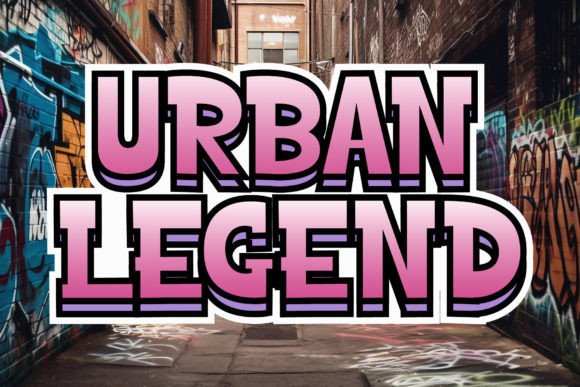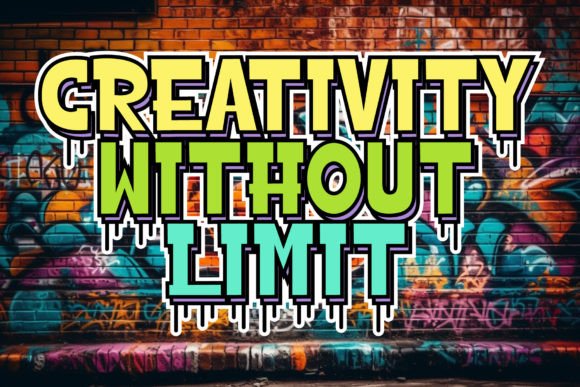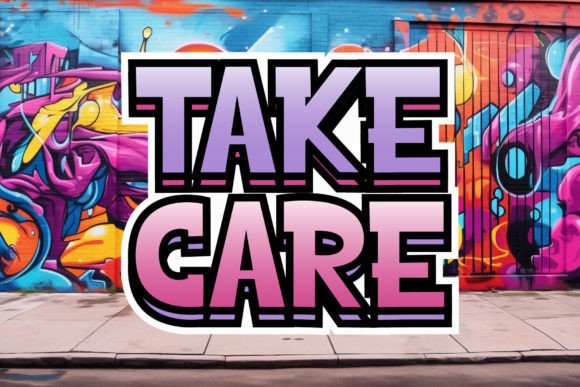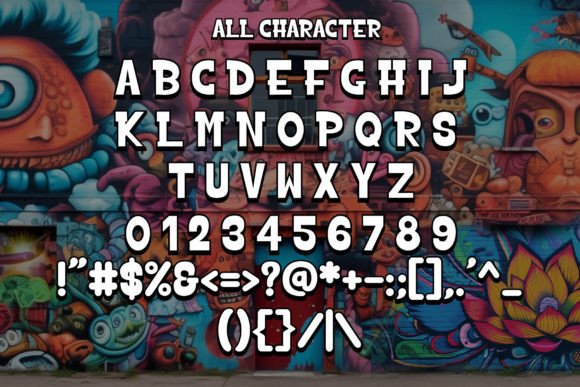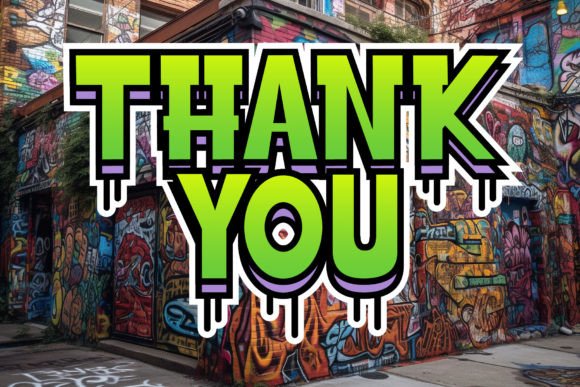
Groovy Graffiti Font: Unleash Your Creativity with Street Lord
Are you a designer, crafter, or artist looking for a font that can add an edgy touch to your projects? Look no further than the Groovy Graffiti Font, specifically the Street Lord font. This bold and thick lettered display font is inspired by the vibrant world of graffiti art, making it perfect for creating stunning posters, flyers, and prints.
What is Street Lord Font?
Street Lord is a unique and eye-catching font that captures the essence of graffiti art. Its bold and thick letters are designed to make a statement, adding a touch of urban flair to any design project. Whether you’re working on a poster, flyer, or print, this font is sure to turn heads.
Key Features of Street Lord Font
- Bold and Thick Letters: The Street Lord font features bold and thick letters that are perfect for creating eye-catching designs.
- Graffiti-Inspired: This font is inspired by the vibrant world of graffiti art, adding an edgy touch to any design project.
- Display Font: Street Lord is a display font, making it perfect for use in headlines, titles, and other prominent design elements.
Endless Possibilities with Street Lord Font
The Street Lord font offers endless possibilities for designers and crafters. Here are just a few ideas to get you started:
- Posters and Flyers: Use Street Lord to create stunning posters and flyers that grab attention.
- Printmaking: This font is perfect for printmaking, adding a touch of urban flair to your designs.
- T-Shirt Designs: Use Street Lord to create bold and eye-catching t-shirt designs.
- Branding and Packaging: This font can be used in branding and packaging design, adding a unique touch to your products.
Tips for Using Street Lord Font
Here are a few tips for using Street Lord font in your designs:
- Use it Sparingly: While Street Lord is a bold font, it’s best to use it sparingly to avoid overwhelming your design.
- Pair it with Other Fonts: Experiment with pairing Street Lord with other fonts to create a unique look.
- Play with Colors: This font looks great in bold and bright colors, so don’t be afraid to experiment with different color schemes.
The Groovy Graffiti Font, specifically the Street Lord font, is a bold and eye-catching display font that’s perfect for designers and crafters looking to add an edgy touch to their projects. With its bold and thick letters, graffiti-inspired design, and endless possibilities, this font is sure to become a staple in your design toolkit. So why wait? Download Street Lord font today and start exploring its endless possibilities!
- What is the Street Lord font?: Street Lord is a bold and thick lettered display font inspired by graffiti art.